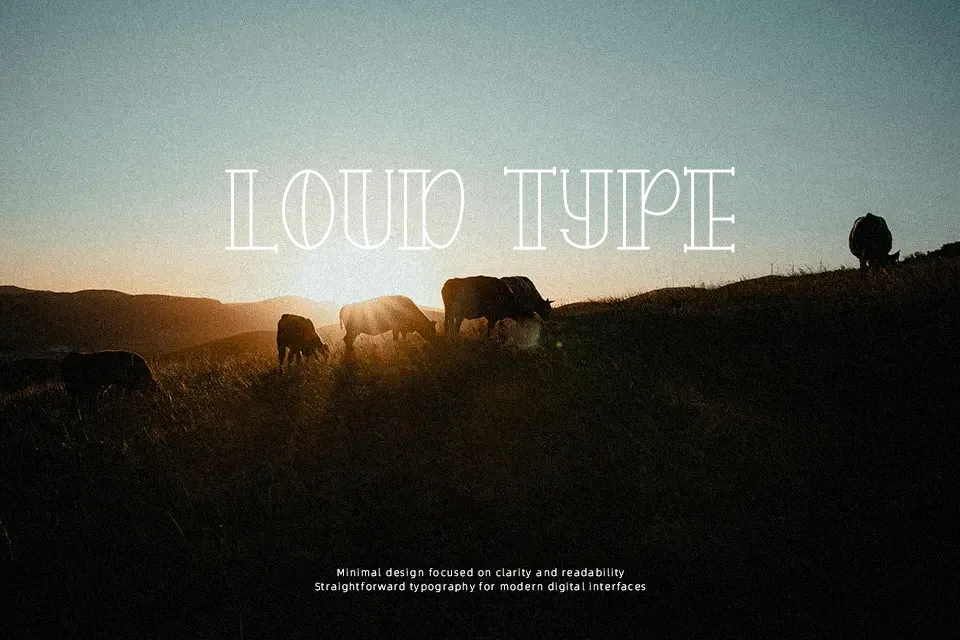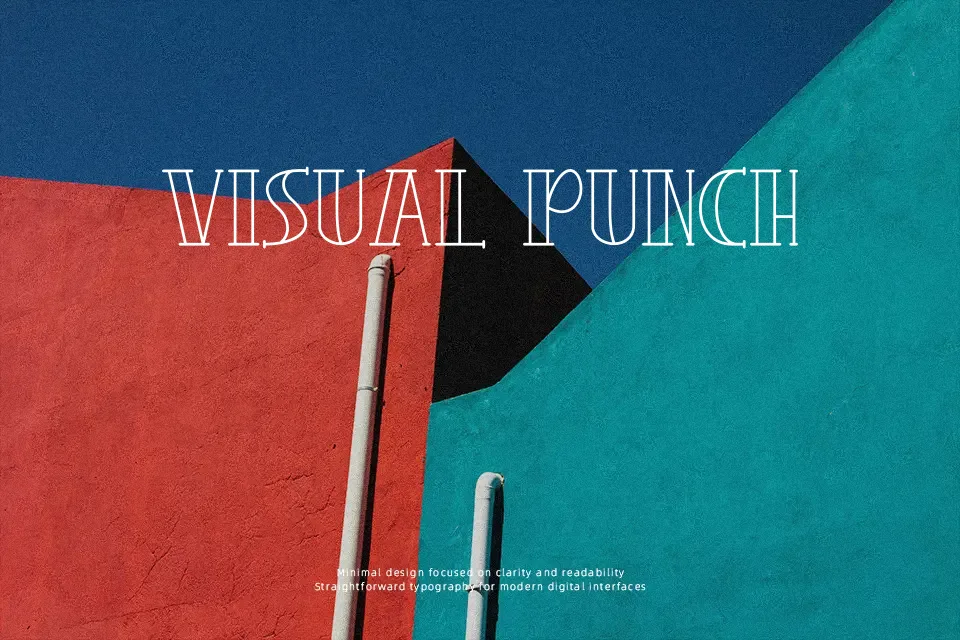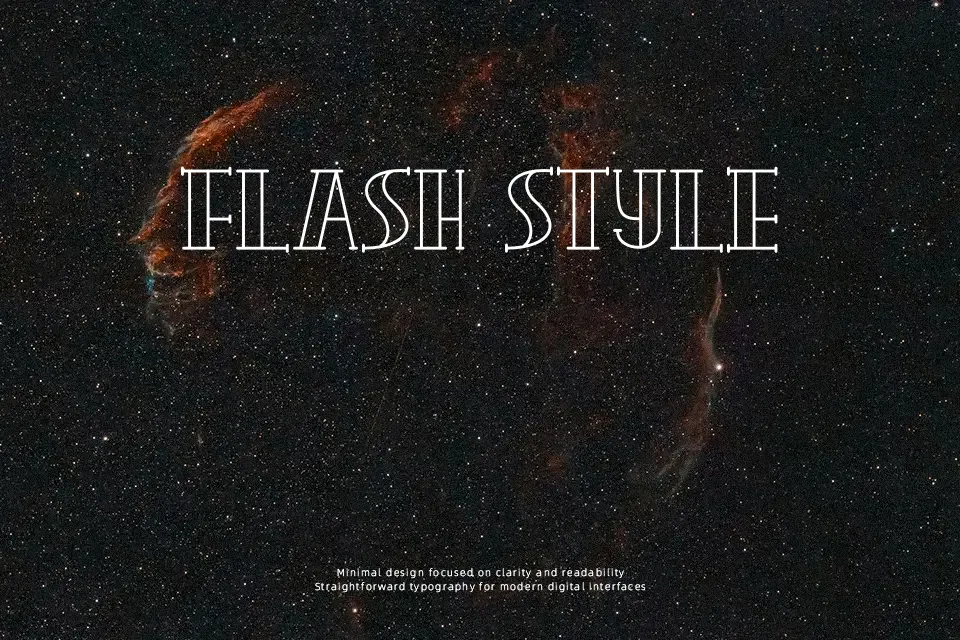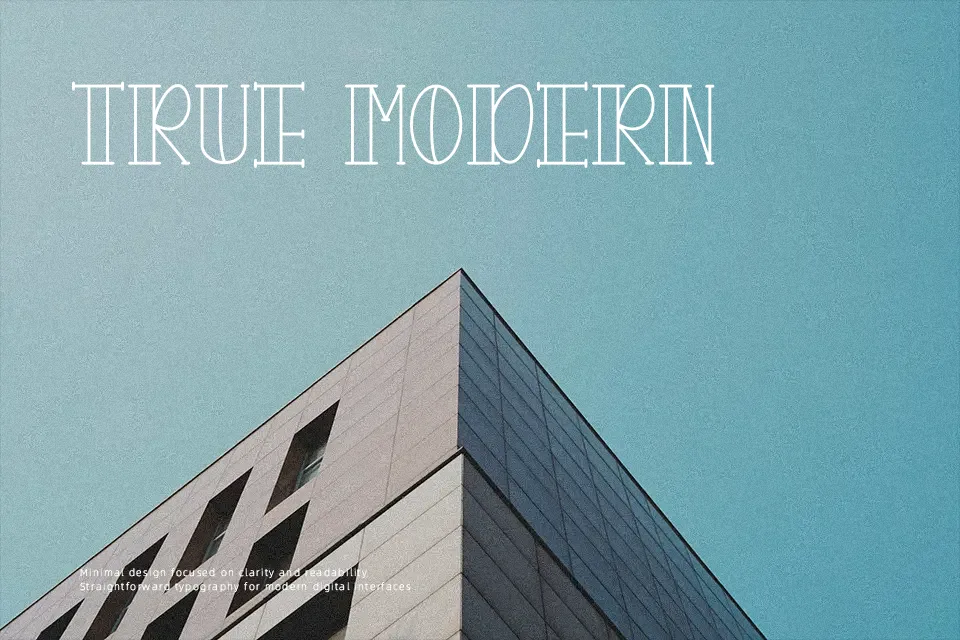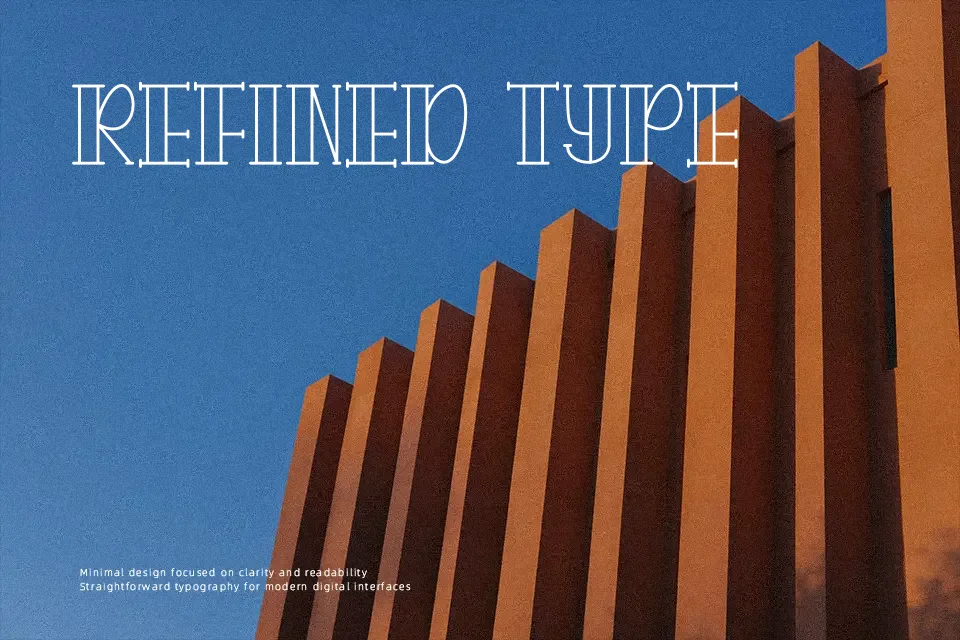
Christmas Craft Font
Christmas Craft Font introduces an open, illustrative display structure defined by rounded contours, uniform stroke weights, and generous interior counter spaces. The letterforms feature balanced horizontal spacing and consistent vertical proportions that preserve strong character distinction in headline settings and festive merchandise packaging. While the open shapes provide an engaging, handcrafted personality across short phrases and seasonal greeting banners, the ornate outlines become visually crowded when set in smaller sizes or dense editorial layouts. Spacing remains stable in title configurations, though the absence of solid fills reduces comfort during extended reading. As a result, the typeface performs reliably for decorative holiday signage rather than body text.
holiday greeting cards
festive product packaging
seasonal event posters
craft merchandise labels
continuous body text
corporate financial reports
dense mobile user interfaces
technical instruction manuals
Perfect for christmas, headline, and holiday, with a creative and cartoon style.